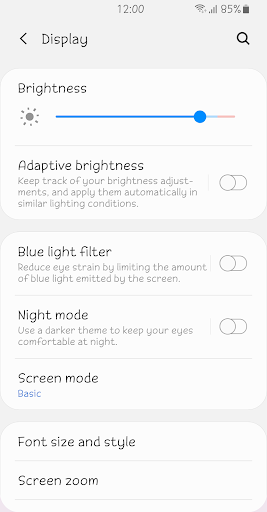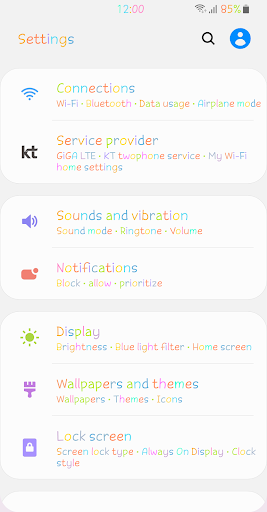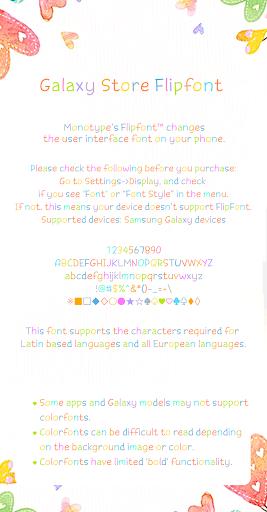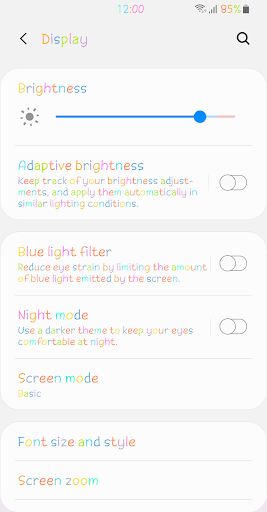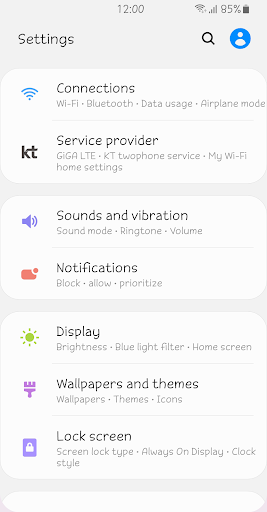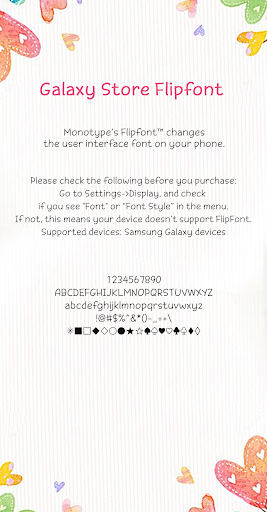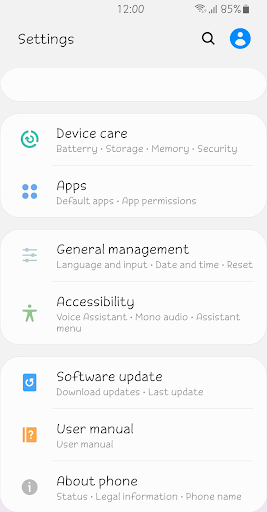
ZF Lovable
It is a cute handwriting style font.
Undecorated letters and natural structure create a comfortable atmosphere.
The cute atmosphere and lovely excitement will make you smile.